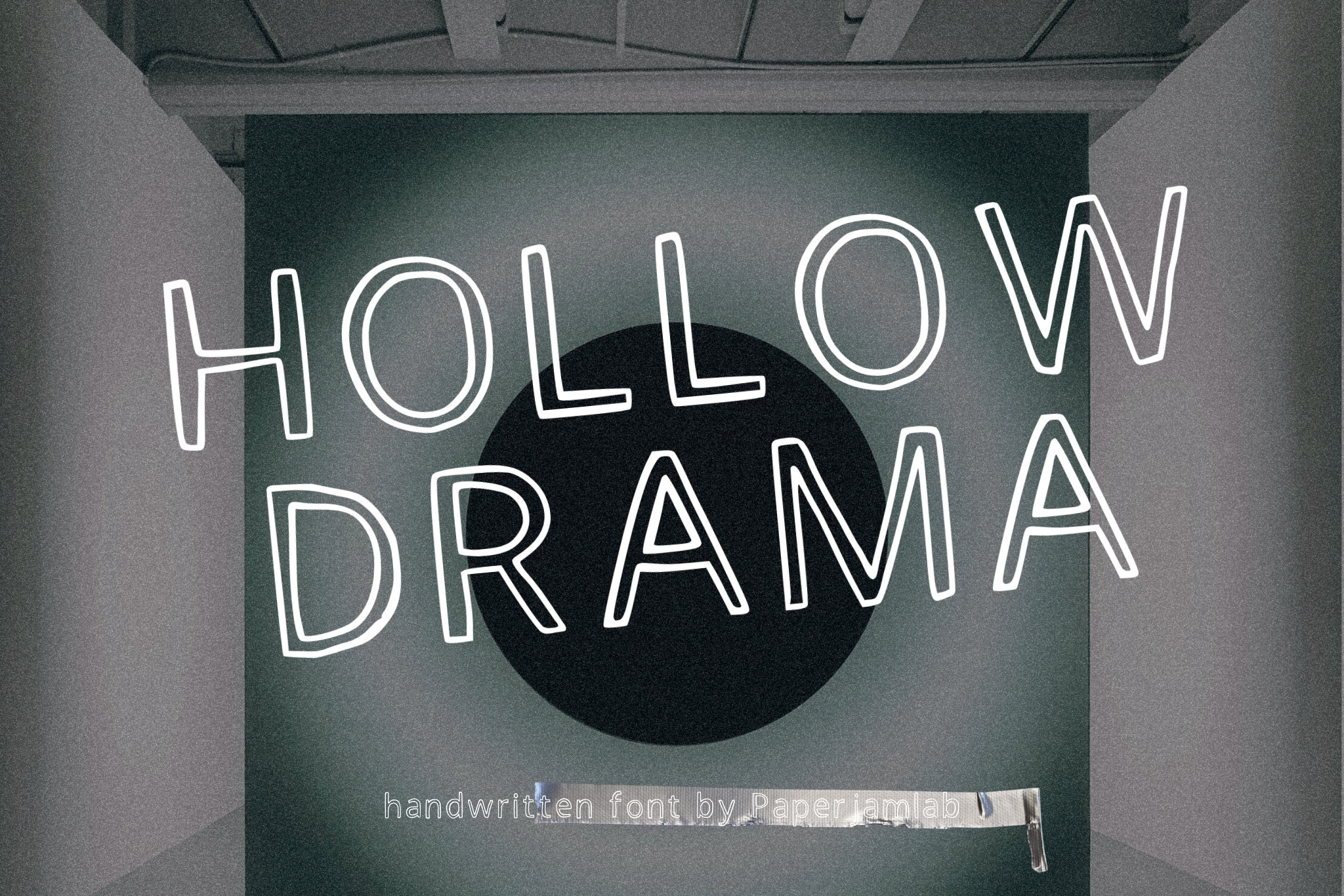
Hollow Drama. Handwritten font
Hollow Drama is a double-line outline typeface exploring the expressive power of negative space. Built on a delicate monoline structure, it creates visual intensity without weight — presence without mass. The open contour form gives each letter a subtle architectural quality, balancing restraint and theatricality.
Designed for contemporary posters, fashion branding and conceptual layouts, Hollow Drama turns emptiness into statement.
• Art posters
• Gallery graphics
• Fashion editorials
• Experimental branding
• Typography-led layouts